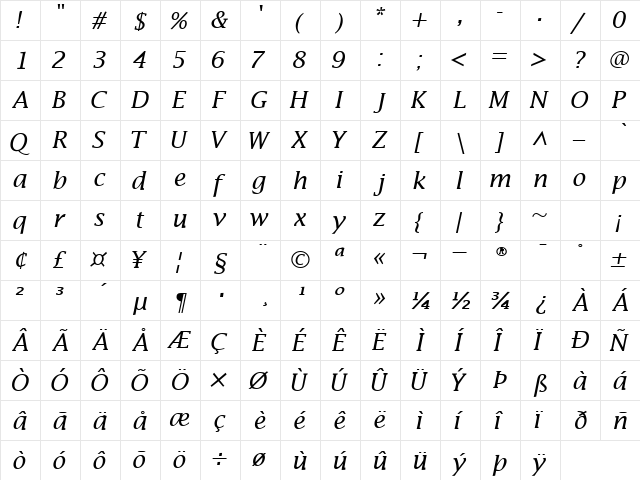
MachadoSSK Italic
Design Context for MachadoSSK Typeface
MachadoSSK takes a measured approach to typography — its balanced proportions and neutral character make it a reliable workhorse for both digital and print work. The slanted form adds forward momentum and visual energy.